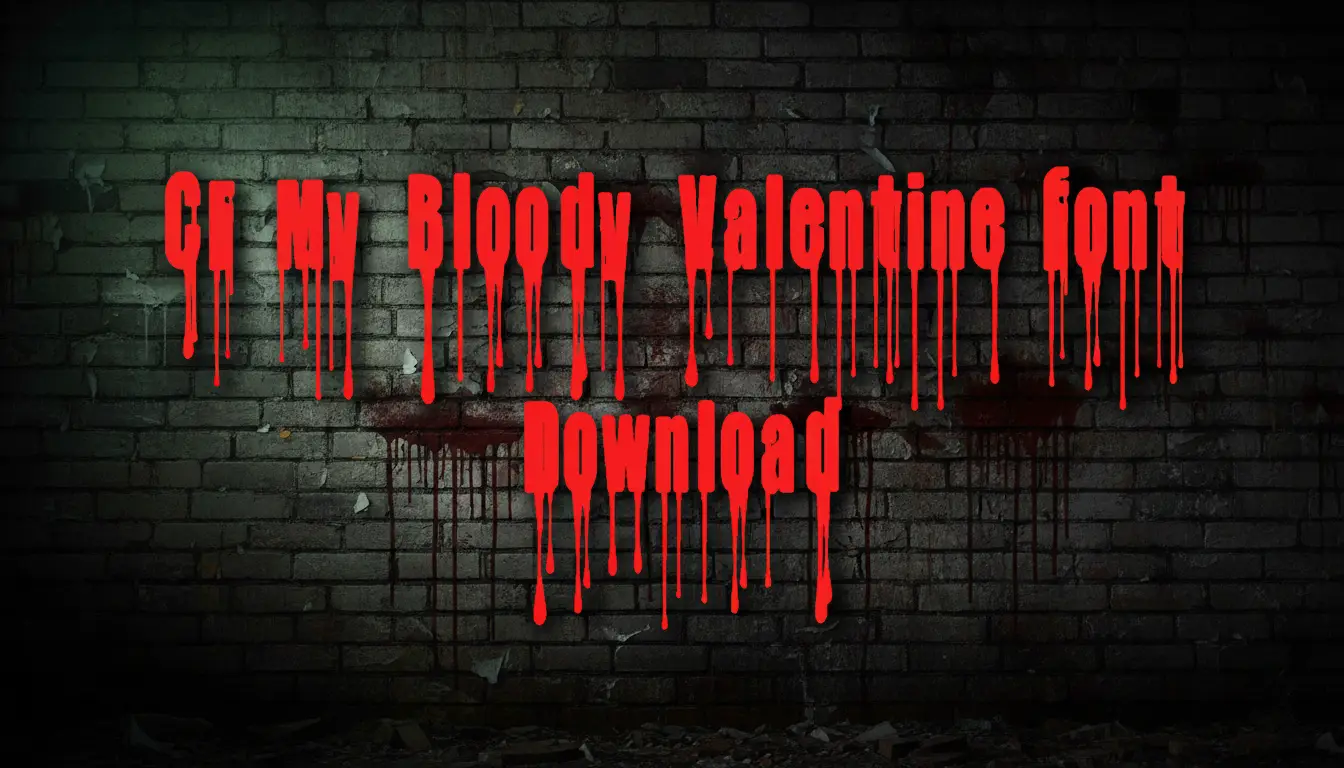
CF My Bloody Valentine Font
CF My Bloody Valentine Font Preview
CF My Bloody Valentine
CF My Bloody Valentine Character Map
CF My Bloody Valentine Font Details
What You Can Type With CF My Bloody Valentine
CF My Bloody Valentine covers the full alphabet in upper and lowercase, plus all ten numbers, so you can set names, dates and prices without switching fonts. Punctuation is limited, so look at the character map if you need a specific symbol. It doesn't include accented letters such as é or ñ, which makes it an English-only font.
Where CF My Bloody Valentine Works Best
CF My Bloody Valentine is a natural fit for posters, logos and eye-catching headlines. Use it for one standout word or headline and let simpler fonts handle the rest.